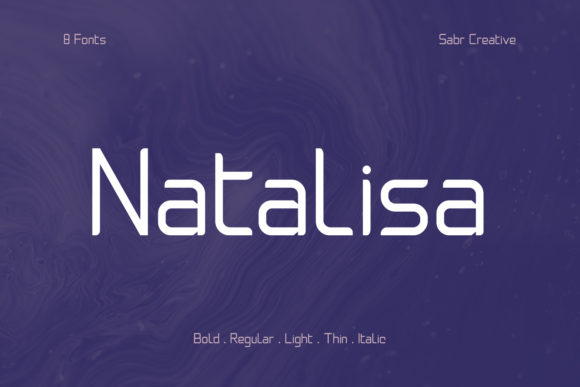
Behold Natalisa Font, a whimsical and distinctive sans serif font, crafted by the talented sabrcreative. Dive into a realm of fun, quirkiness, and authenticity, where your creative visions transform into captivating standouts.
Natalisa possesses a charm that sparks joy, a vibrancy that electrifies, and an allure that captivates. Its carefully crafted curves and playful strokes infuse your designs with a touch of mischief and a dash of delight.
Step out of the ordinary and embrace the extraordinary with Natalisa. This font is more than just a collection of characters; it's an experience, a journey through a world where creativity knows no bounds. Let Natalisa ignite your imagination and spark a revolution in your designs.
With Natalisa by your side, your business cards will radiate confidence and uniqueness. Its enchanting presence will leave a lasting impression on potential clients, transforming mere acquaintances into loyal customers.
Natalisa is not just a font; it's a statement, a reflection of your brand's personality. It's a font that speaks volumes, communicating your passion, your dedication, and your commitment to excellence.
Harness the power of Natalisa and watch your creative dreams flourish. Its versatility knows no limits, transforming ordinary designs into extraordinary masterpieces. Embrace the whimsical, the quirky, and the authentic. Unleash your creativity and let Natalisa elevate your designs to new heights.